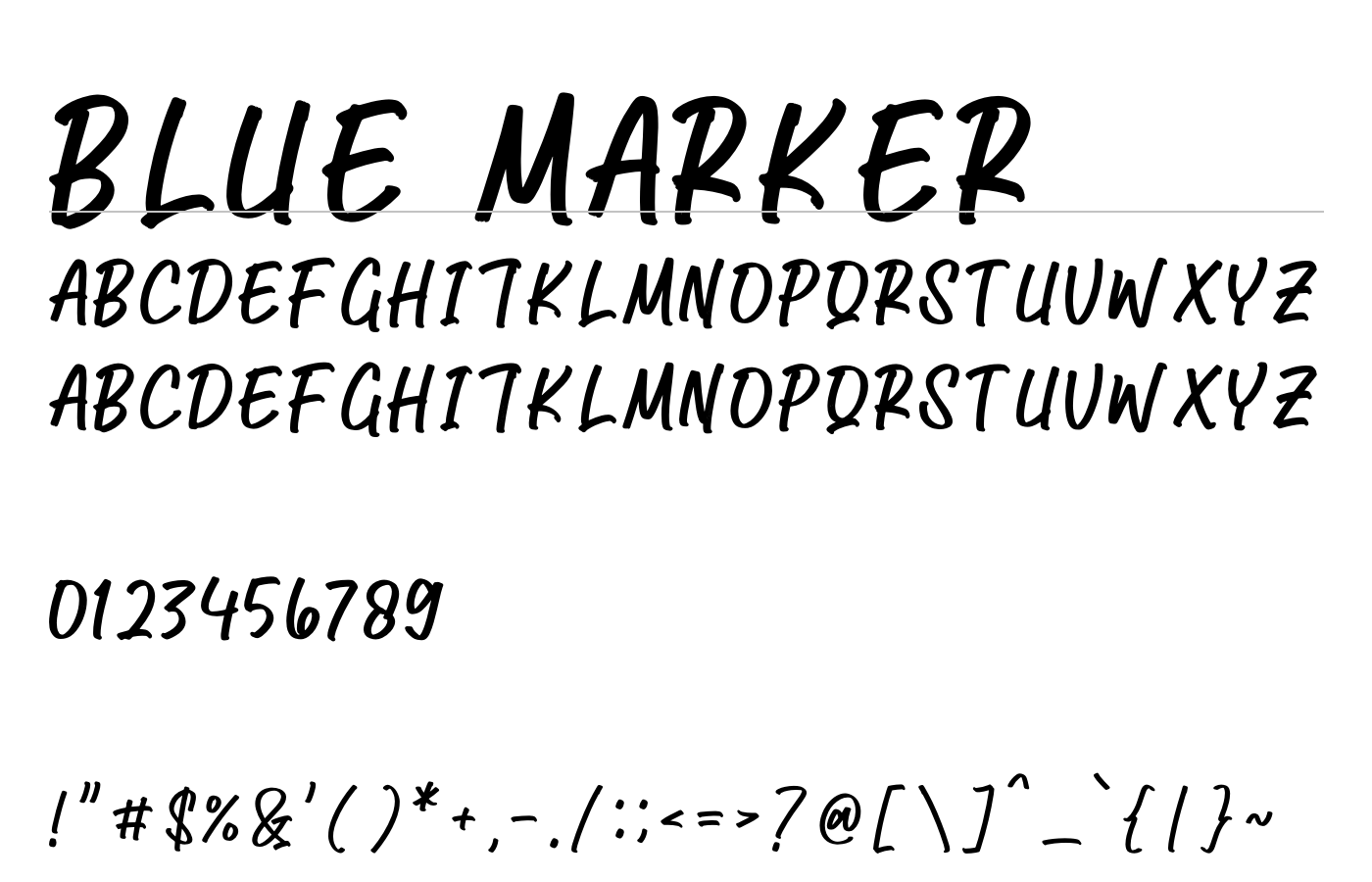
Blue Marker Font is a lively, casual script typeface that mimics the spontaneous and textured strokes of a broad marker pen. Its medium weight, slightly condensed letterforms with varied stroke thickness and playful, informal flair make it perfect for creative projects, branding, and headlines that require a friendly, hand-drawn aesthetic. This font works well in designs seeking energy and approachability, such as packaging, posters, and youth-oriented marketing materials.
Blue Marker Font
About Blue Marker Font